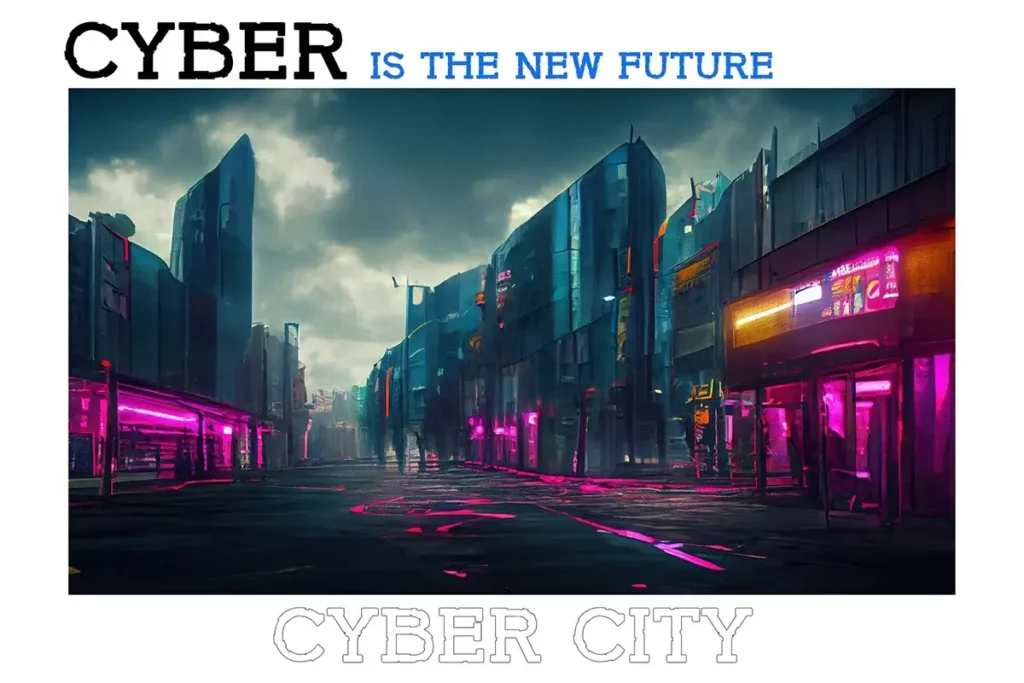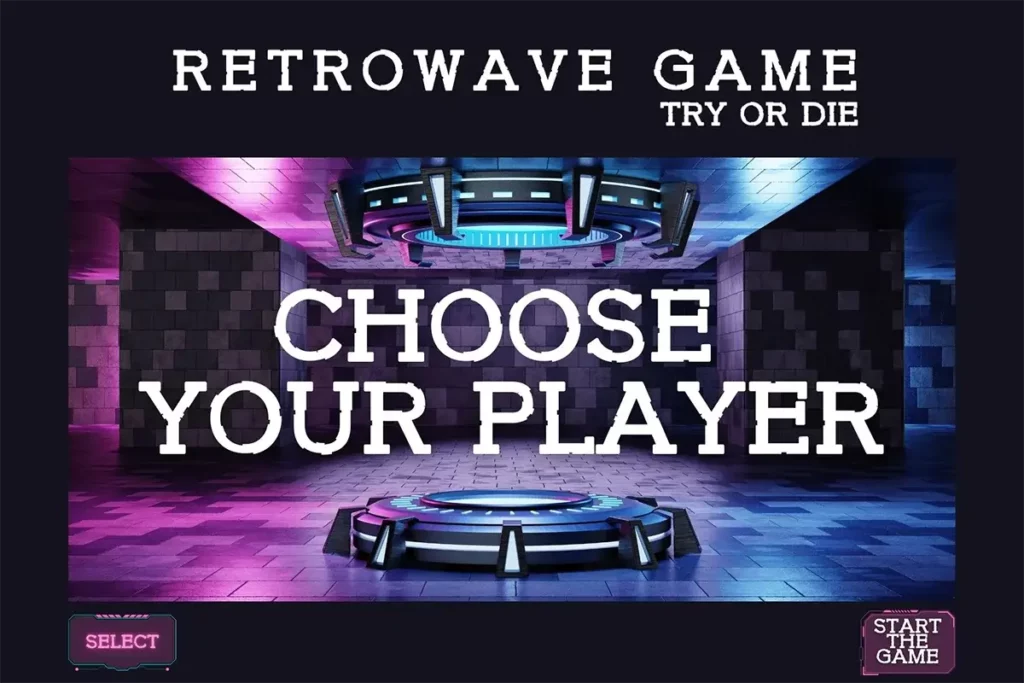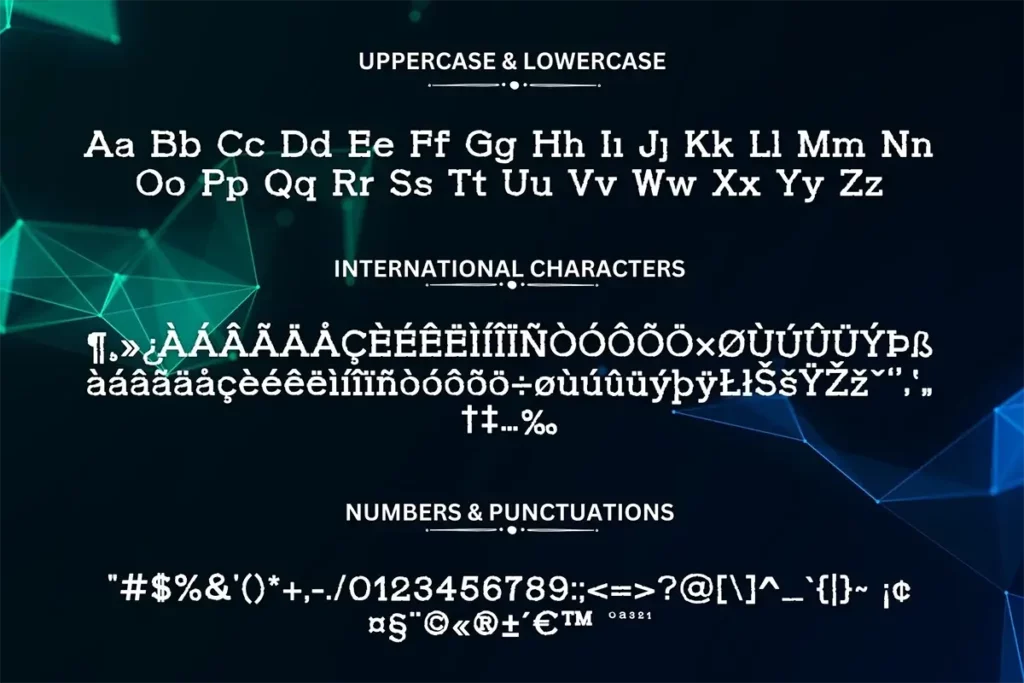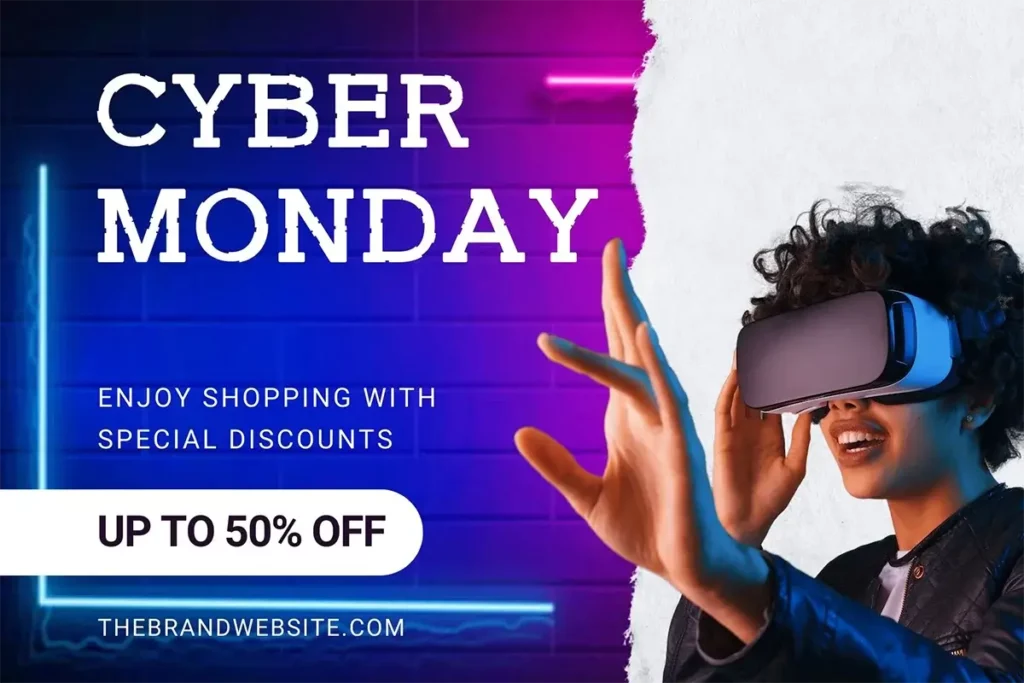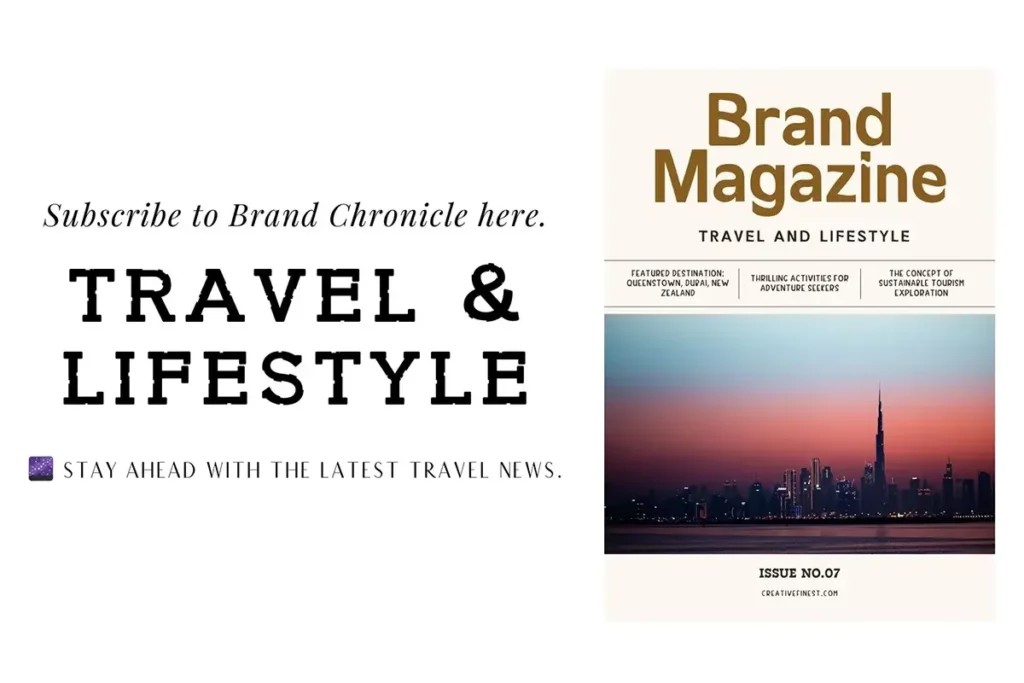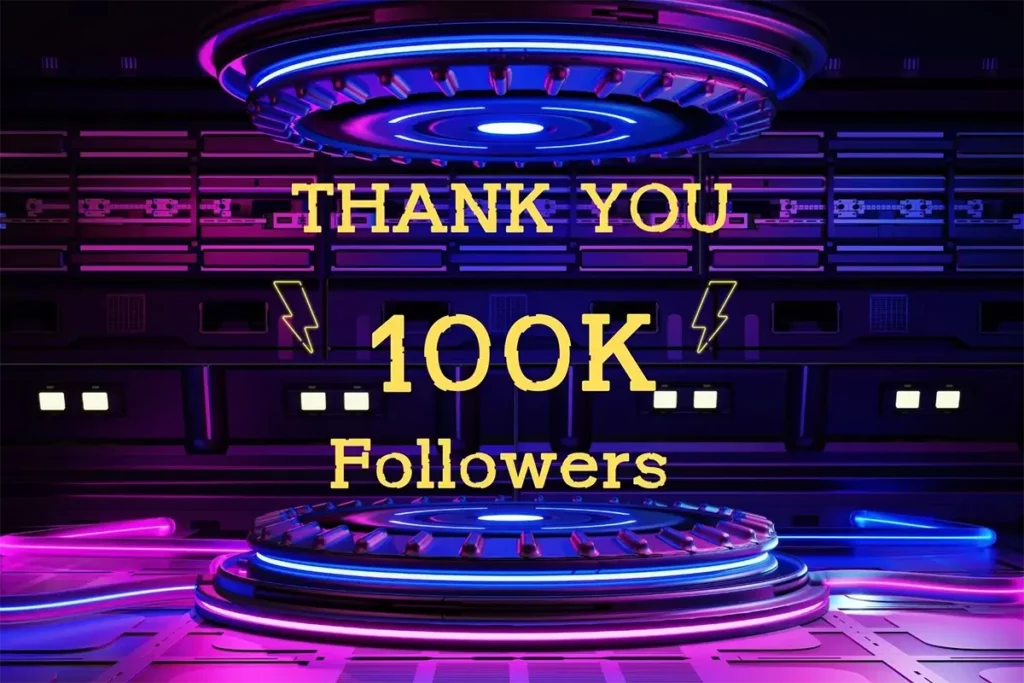
CyberHack Tech Font
CyberHack Tech Font is a modern and futuristic display font that is perfect for creating a bold and impactful statement which features sharp angles and geometric shapes, giving it a unique and eye-catching look.
The font is available in two weights, regular and outline, and includes a full set of uppercase and lowercase letters, numbers, and punctuation with a variety of special characters. This font is perfect for a variety of design projects, including logos, posters, flyers, and website headers. It can also be used to create custom t-shirts, mugs, and other merchandise.